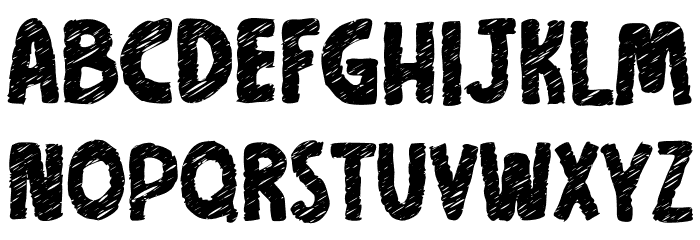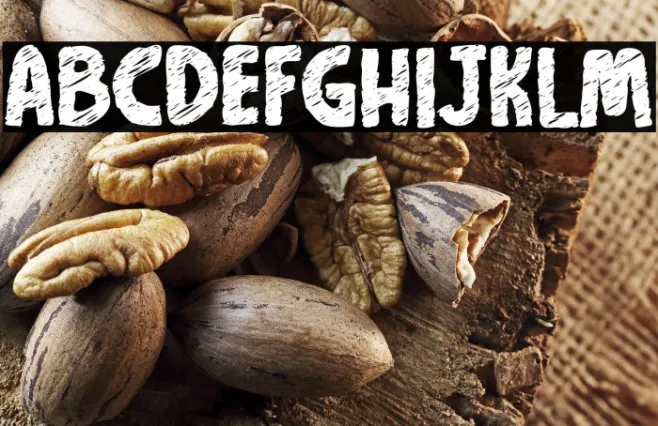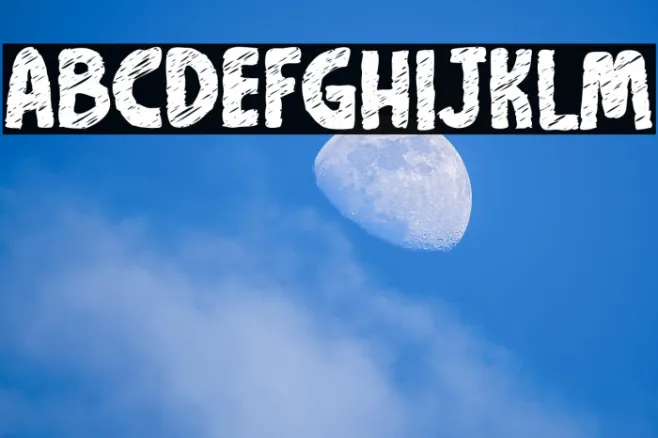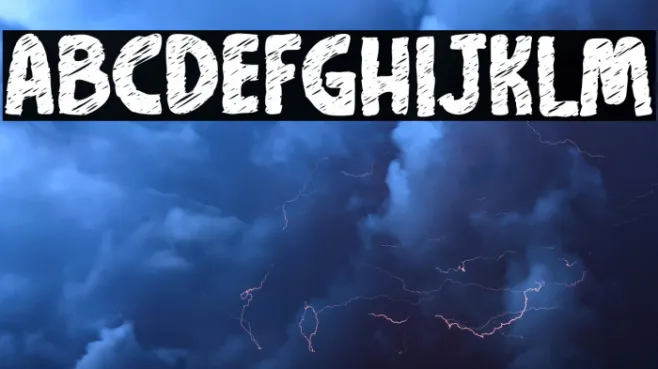
Bring Back Justice Font
This font features a bold, textured style that mimics a hand-drawn, chalk-like appearance. The uppercase letters are robust and impactful, with a slightly irregular edge that adds a sense of dynamism and energy. The strokes are thick and consistent, creating a strong visual presence. The font is particularly suited for creative and artistic projects, where a touch of informality and playfulness is desired. Its unique texture makes it stand out, ideal for designs that require a bold statement. The absence of lowercase letters and numbers suggests a focus on headline or display use, emphasizing its decorative nature.
A bold, textured, hand-drawn style font ideal for creative projects.
- Font: Bring Back Justice
- Proposed Projects: Posters, album covers, event flyers, children's book titles, and artistic branding.